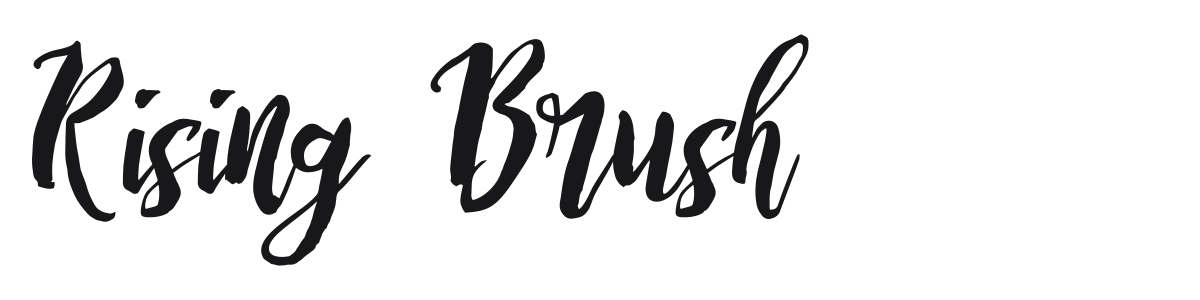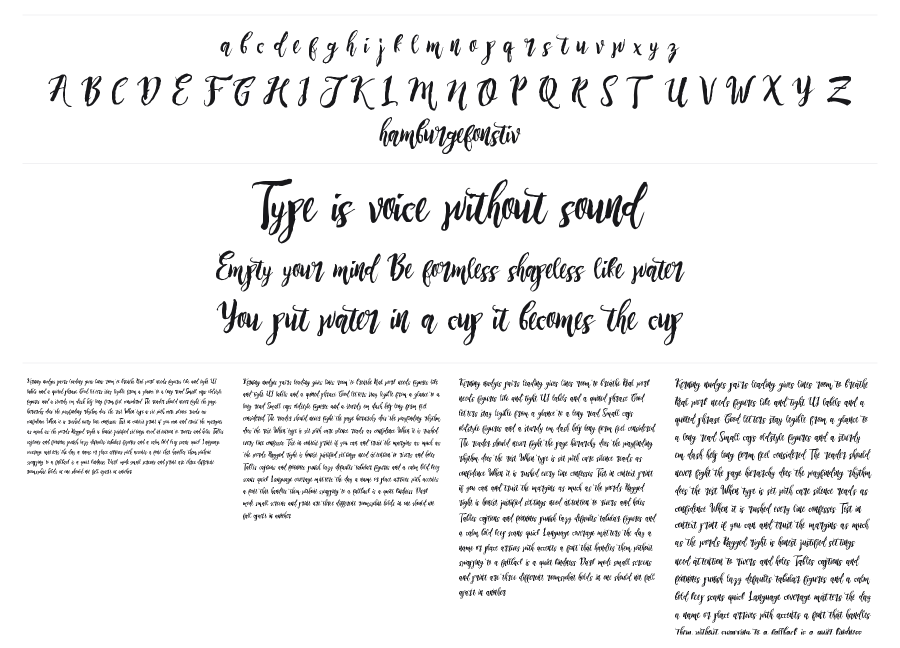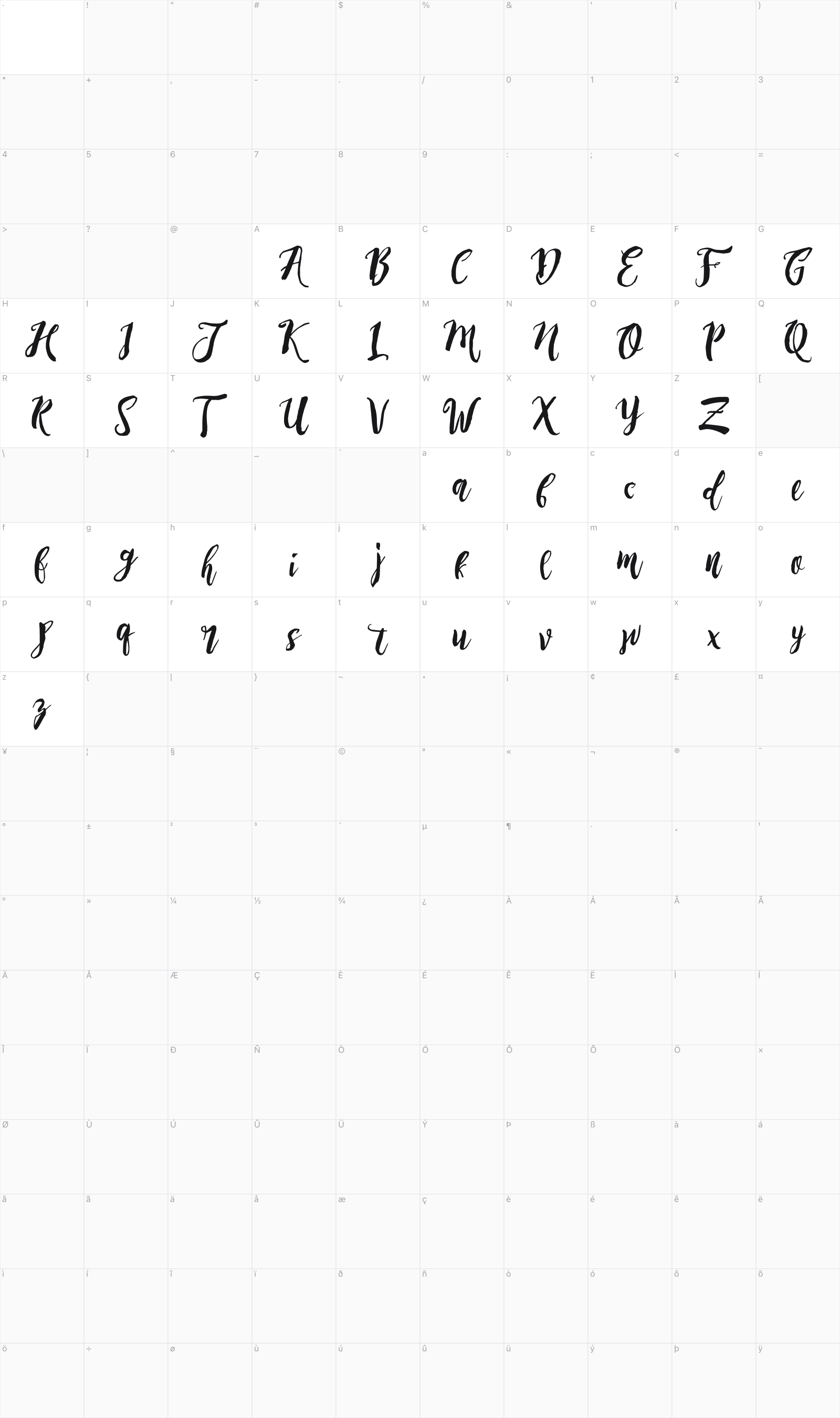
Rising Brush
Rising Brush is a bold, high-contrast brush script that walks the line between elegance and grit. Sweeping connections, expressive loops, and deliberate imperfections give it an energetic handmade quality that flat digital scripts lack. It carries enough personality for book covers, apparel, and poster work without tipping into illegibility.